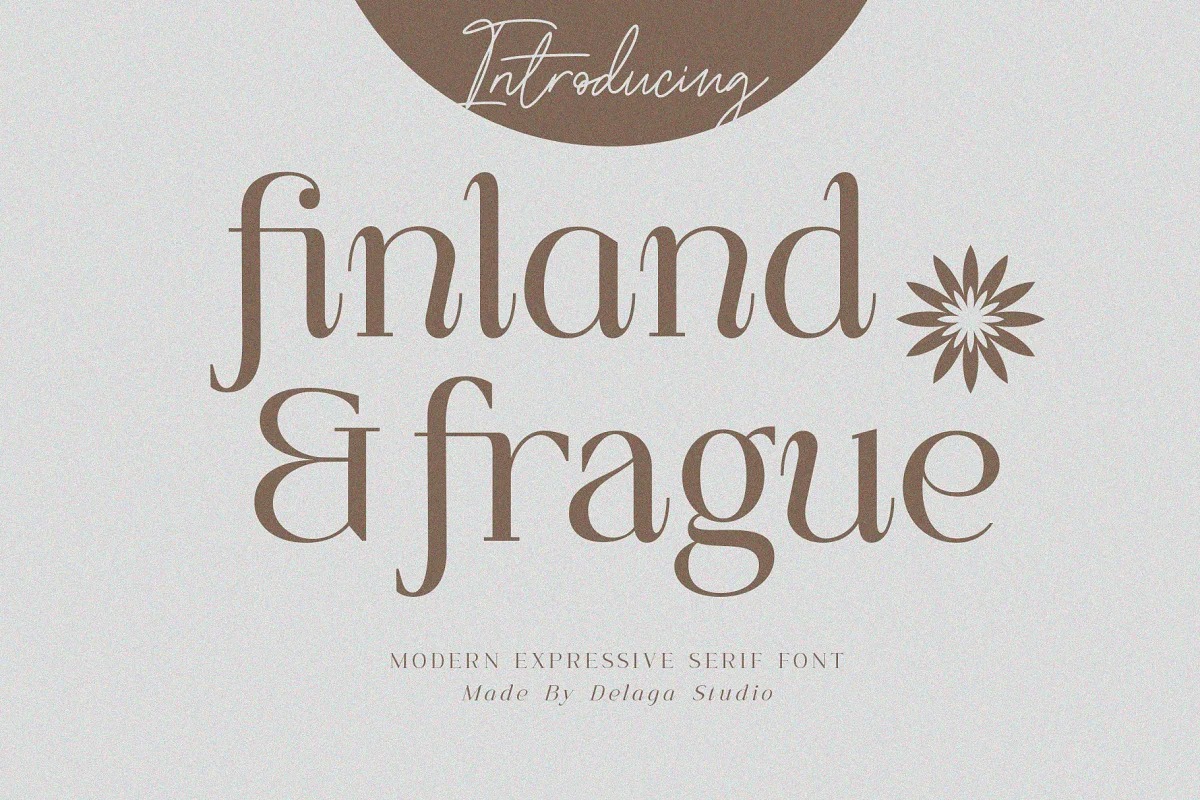
Finland & Frague Serif Font
This font designed by Delaga Studio is a stylish display serif with an elegant and luxury style. Its soft curves mixed with high contrast glyphs lend themselves to both feminine and masculine qualities. With a contrasting light italic, Analogue works great in layout design for quotes or body copy. The Elegant curves also make for a unique logo or masthead. Analogue comes with a multilingual support also.